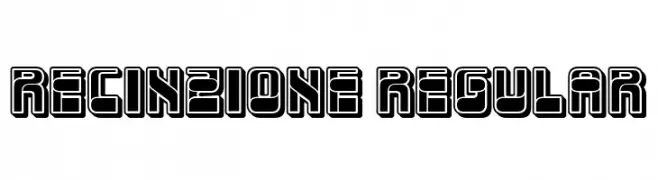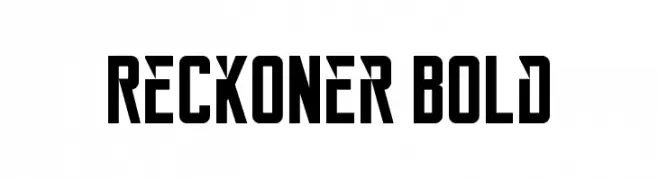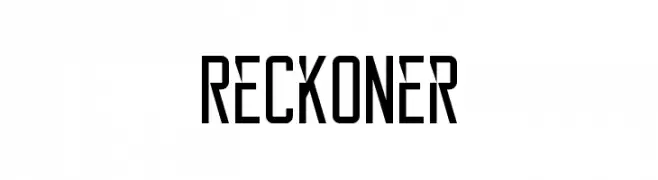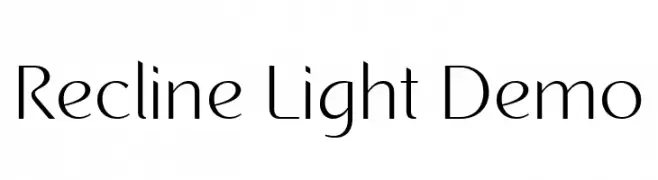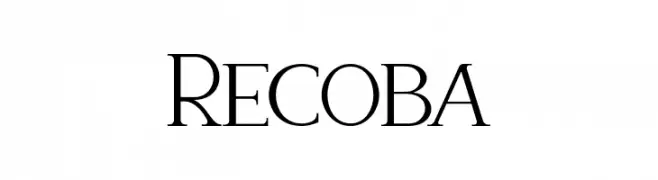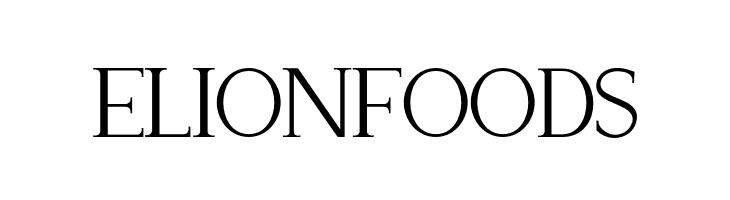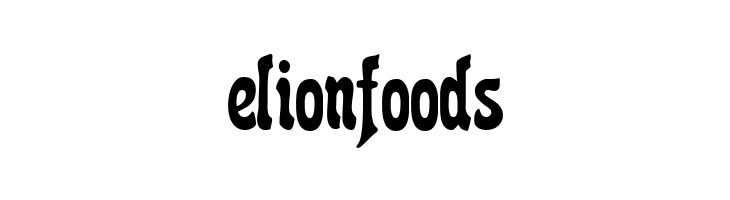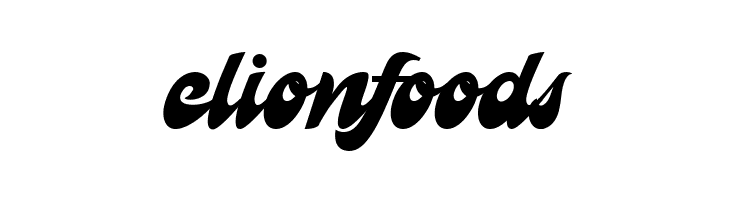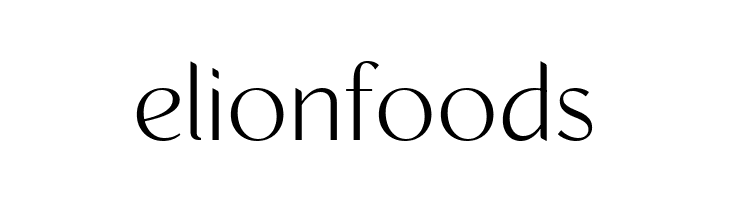
A bold, geometric font with a three-dimensional, retro-futuristic style.
A bold, hand-painted style font with expressive, brush-like strokes.
A bold, expressive handwritten font with dynamic brush-like strokes.
A bold, geometric font with a modern, industrial style.
A bold, geometric font with sharp angles and a modern industrial feel.
A bold, retro-style font with thick, rounded characters and a playful design.
A sleek, modern font with clean lines and a minimalist aesthetic.
A sophisticated serif font with high contrast and elegant serifs.
A dynamic and elegant script font with flowing, cursive letterforms.
A modern serif font with smooth curves and balanced proportions.